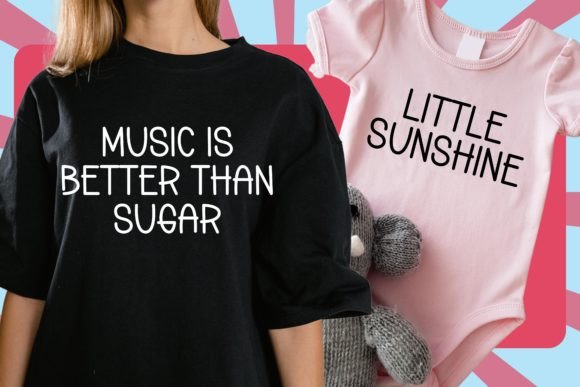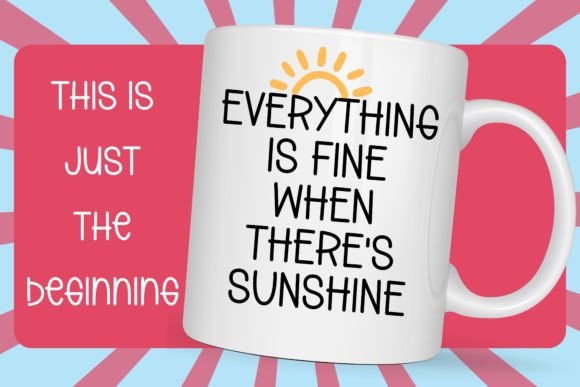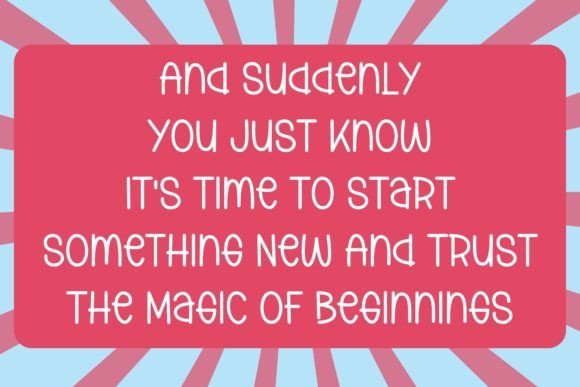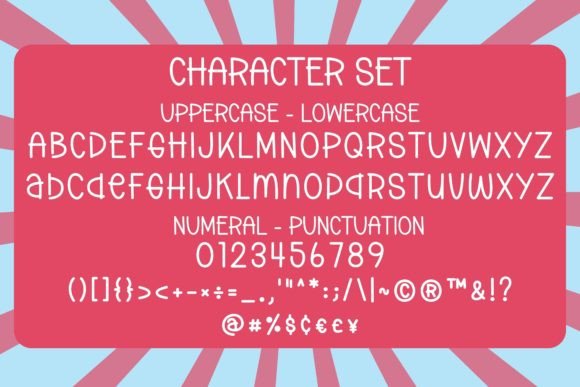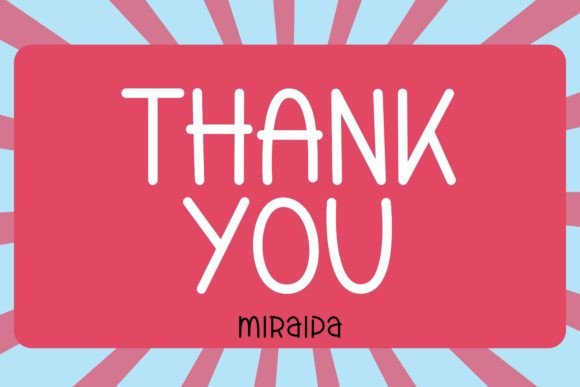
Give Your Projects a Friendly Touch with Beginning Font
Have you ever stared at a blank page, waiting for inspiration to strike? The blank canvas of your next project can be daunting, but what if you had the perfect font to spark your creativity?
Introducing Beginning Font, a charming handwritten sans serif font designed to bring a touch of warmth and personality to your designs. Perfect for fun projects and DIY endeavors, Beginning Font is ideal for adding a friendly feel to your Easter decorations, back to school planners, wedding invitations, and more. With its cute and approachable style, this font is a valuable addition to any designer’s library.
Whether you’re a seasoned pro or just starting out, Beginning Font is the perfect tool to help you bring your creative vision to life. Add it to your fonts’ library and discover the endless possibilities it has to offer.
- Unique Characteristics: The font features a clean, modern design with subtle rounded edges, giving it a friendly and approachable feel.
- Kerning and Ligatures: The font includes advanced kerning and ligature pairs, ensuring that text sets up smoothly and looks professional.
I recently had the chance to work with the “Beginning Font” and I must say it’s an interesting choice for designers. ✨ One of the things I liked about it was the simplicity of its design, which made it easy to use in various projects. The font is clean, legible, and works well for body text. It’s also a great choice for beginners, as it’s easy to read and understand.
However, there are some limitations to consider. ⚠️ For one, the font is quite basic and may not be suitable for more complex or creative projects. It lacks the sophistication and nuance of more advanced fonts. Additionally, the font may not be as readable in certain situations, such as at small sizes or in low-light environments.
Overall, I would say that the “Beginning Font” is a decent choice for designers who are just starting out or need a simple font for a specific project. However, for more experienced designers or those looking for a more advanced font, there are better options available.
- Simplicity and ease of use
- Great for body text and beginners
- Clean and legible design
- Lacks sophistication and nuance
- May not be suitable for complex projects
- May not be readable in certain situations
Caslon is a serif font designed by William Caslon in the 18th century. It is a classic and elegant font that is often used in traditional and formal designs. Caslon is a great alternative to Beginning Font for designs that require a sense of sophistication and history. Unlike Beginning Font, Caslon has a more refined and subtle feel, making it suitable for use in books, magazines, and other print materials.
Georgia is a serif font designed by Matthew Carter in the late 1990s. It is a clear and readable font that is often used in digital designs. Georgia is a good alternative to Beginning Font for designs that require a sense of clarity and legibility. Unlike Beginning Font, Georgia is more modern and has a more even spacing, making it suitable for use in digital interfaces and web pages.